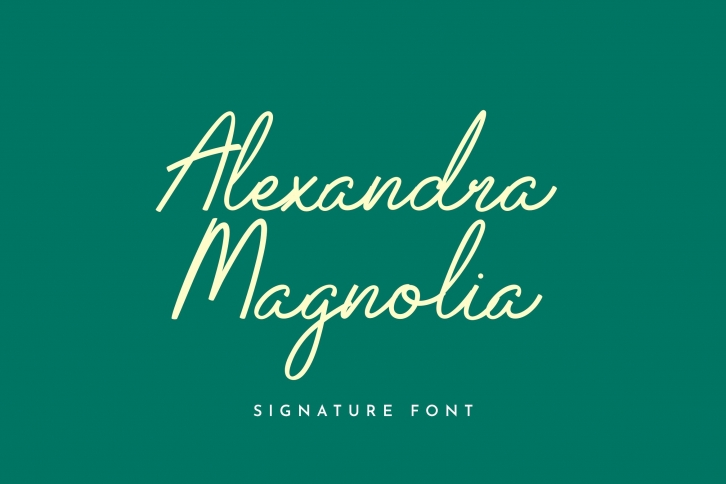
Introducing of our new product the name is Alexandra Magnolia Signature Font. Modern signature font that feels beautiful classy, elegant, and modern .This font is perfect suited for a wide variety of projects, as to signature, stationery, logo, wedding, typography quotes, magazine or book cover, website header, clothing, branding, packaging design and more. Also for fashion related branding or editorial design and displays both masculine and feminine qualities.